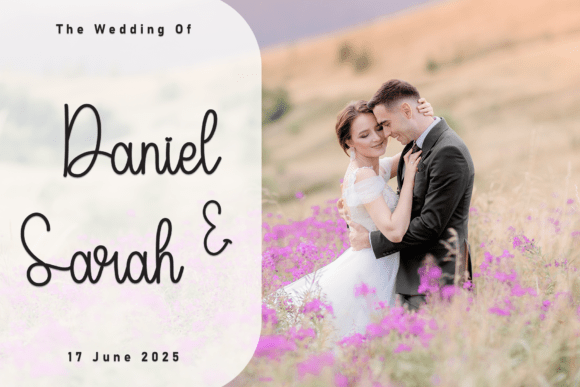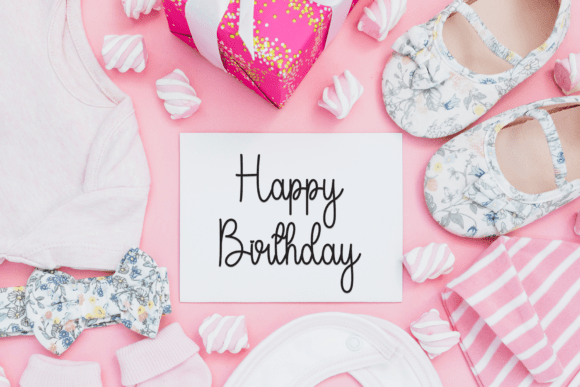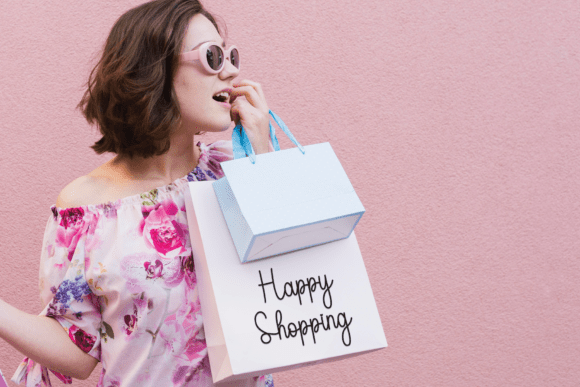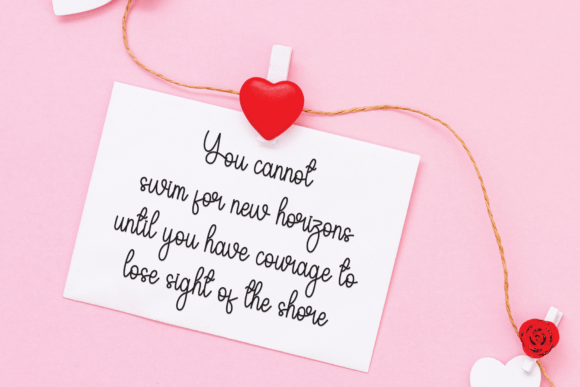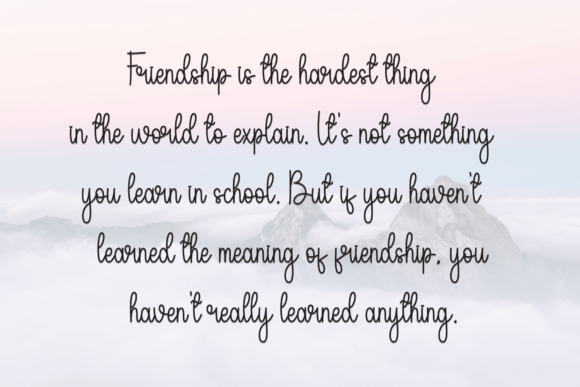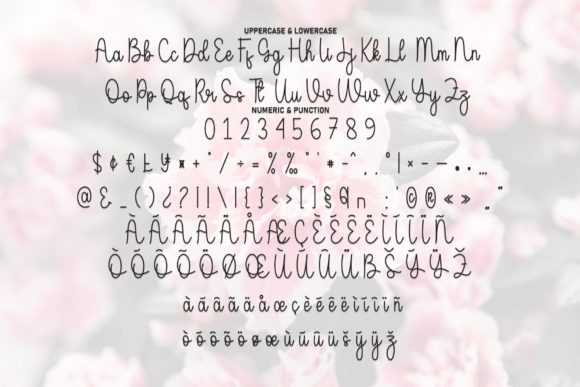
Discover the Elegance of Angela Font: Elevate Your Designs with Artistic Flair
In the world of typography, few fonts manage to capture the perfect blend of artistic elegance and modern sophistication. Angela Font is one such exceptional typeface that has been making waves in the design community. With its fluid brush strokes, dynamic curves, and expressive letterforms, Angela Font brings a touch of hand-painted calligraphy to the digital age, making it an ideal choice for designers and crafters looking to add a creative and sophisticated flair to their projects.
The Artistic Essence of Angela Font
Angela Font is more than just a typeface; it’s an artistic statement. Its design is inspired by the fluidity and expressiveness of hand-painted calligraphy, but with a modern twist that gives it a fresh and contemporary feel. Each letterform is meticulously crafted to convey a sense of movement and elegance, making it perfect for projects that require a touch of sophistication and style.
Key Features of Angela Font
- Fluid Brush Strokes: Angela Font features fluid brush strokes that give it a natural, hand-painted look. This characteristic makes it stand out in any design, adding a personal and artistic touch.
- Dynamic Curves: The font’s dynamic curves add to its elegance and artistic appeal. These curves provide a sense of movement and fluidity, making the text more engaging and visually appealing.
- Expressive Letterforms: Each letterform in Angela Font is designed to be expressive and unique, contributing to the font’s overall charm and character. This expressiveness ensures that the text does not look monotonous but rather vibrant and full of life.
Versatility and Application
One of the standout qualities of Angela Font is its versatility. Its unique blend of artistic flair and contemporary elegance makes it suitable for a wide range of design projects. Here are some of the ideal applications for Angela Font:
- Logos: Create a memorable brand identity with Angela Font. Its stylish and elegant appearance makes it perfect for logos that need to stand out and convey a sense of sophistication.
- Invitations: Whether it’s a wedding invitation, a birthday party invite, or any other special occasion, Angela Font adds a touch of elegance and personalization that is sure to impress.
- Packaging: For product packaging, Angela Font can help brands achieve a distinctive and attractive look that stands out on store shelves.
- Social Media Graphics: Enhance your social media presence with eye-catching graphics. Angela Font can be used to create engaging posts, stories, and banners that capture attention and convey your message stylishly.
Why Choose Angela Font?
Choosing Angela Font for your design projects comes with numerous benefits:
- Visual Impact: The font’s unique design ensures that your text does not go unnoticed. Its artistic flair and elegance make it a great tool for creating visually impactful designs.
- Versatility: Angela Font can be used across various platforms and design contexts, making it a valuable addition to any designer’s toolkit.
- Easy to Read: Despite its artistic nature, Angela Font remains easy to read, ensuring that your message is communicated effectively.
Tips for Using Angela Font Effectively
To get the most out of Angela Font, consider the following tips:
- Pair with Simple Fonts: For optimal readability, pair Angela Font with simpler fonts for body text. This contrast ensures that your headings stand out while keeping the rest of the text clear and easy to read.
- Experiment with Colors: Take advantage of Angela Font’s versatility by experimenting with different colors. The font looks great in bold, vibrant colors as well as more subdued tones.
- Use for Headings and Titles: Angela Font is best used for headings, titles, and short phrases. Its artistic nature makes it perfect for grabbing attention and adding a creative touch to your designs.
In conclusion, Angela Font is a stylish script font that brings a unique blend of artistic flair and contemporary elegance to the world of typography. Its fluid brush strokes, dynamic curves, and expressive letterforms make it an ideal choice for designers and crafters looking to elevate their projects. Whether you’re creating logos, invitations, packaging, or social media graphics, Angela Font is sure to add a creative and sophisticated touch that sets your designs apart.